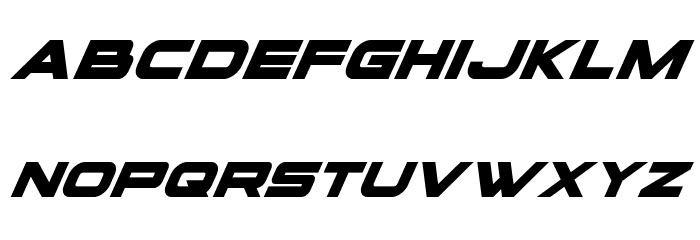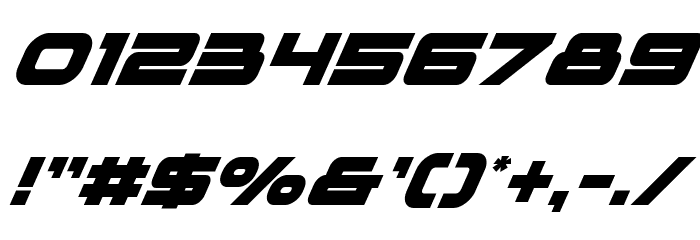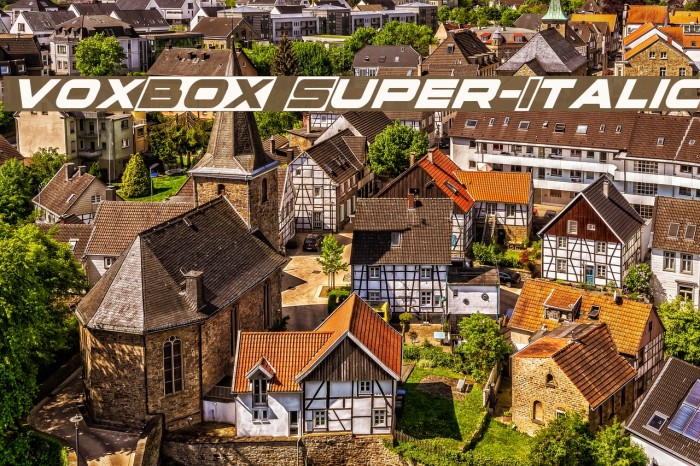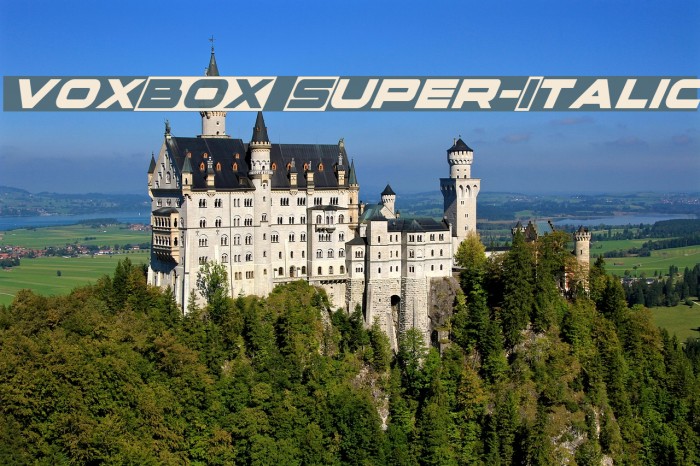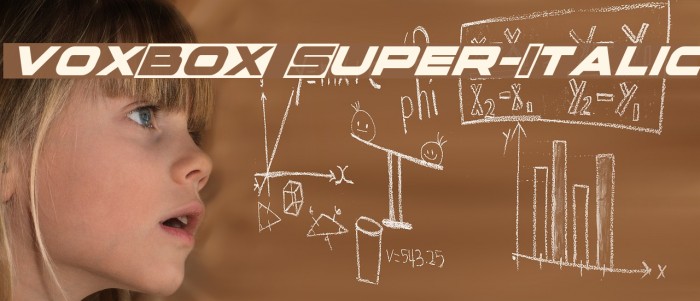
voxBOX Super-Italic Font
This font exhibits a dynamic and modern style with a strong italic slant, giving it a sense of motion and speed. The characters are bold and angular, featuring sharp edges and a futuristic aesthetic. The uppercase letters are particularly striking, with a consistent slant that enhances their visual impact. The numerals and special characters maintain the same bold and angular design, ensuring uniformity across all elements. This font is ideal for projects that require a contemporary and energetic look.
A bold, italic font with a modern, angular design and strong slant.
- Proposed Projects: Ideal for sports branding, automotive advertisements, tech company logos, and dynamic poster designs.